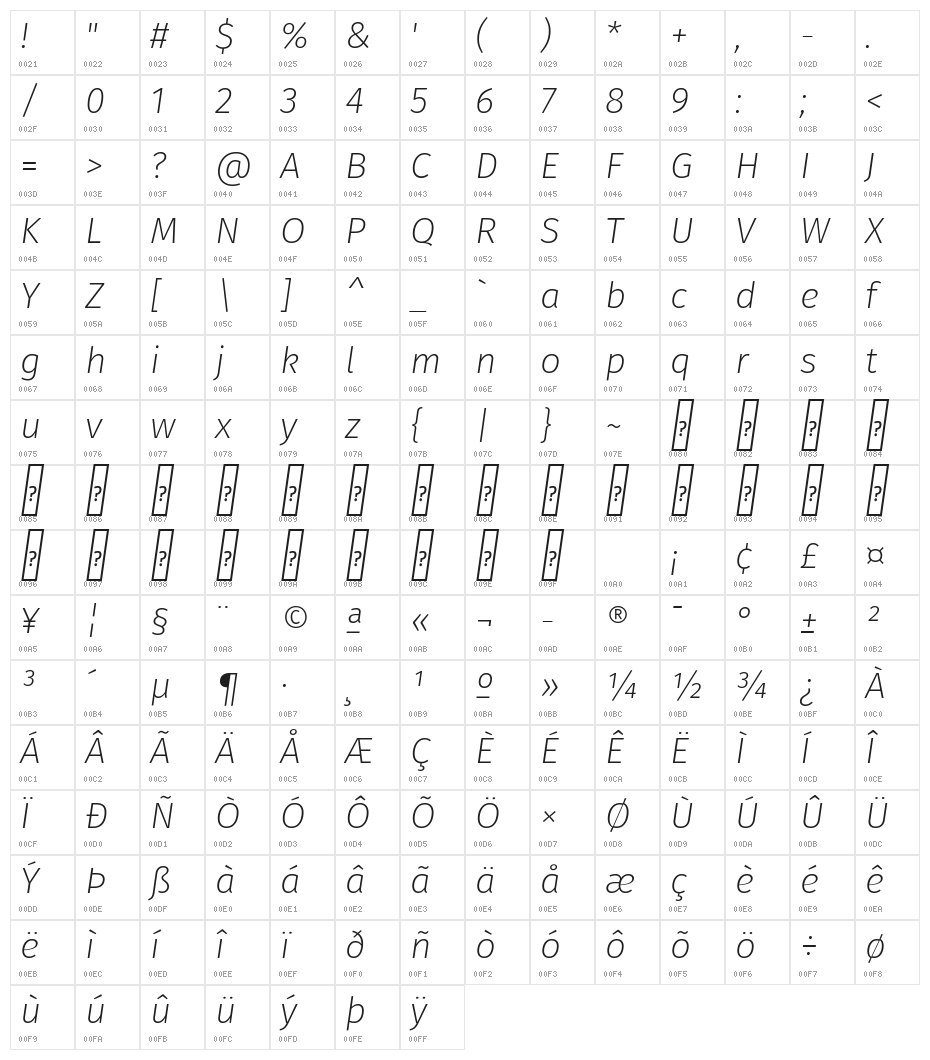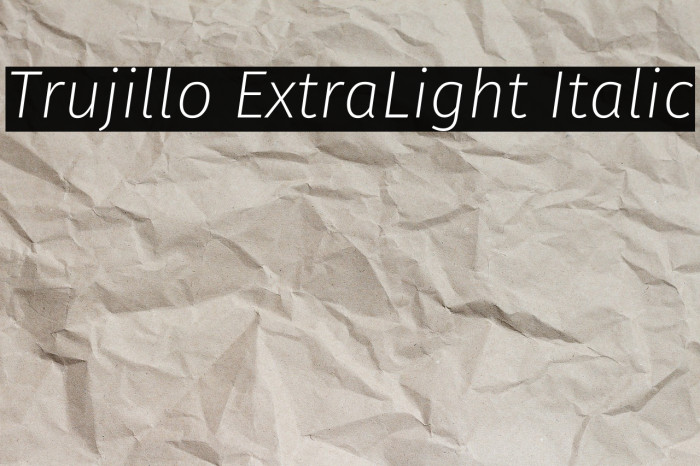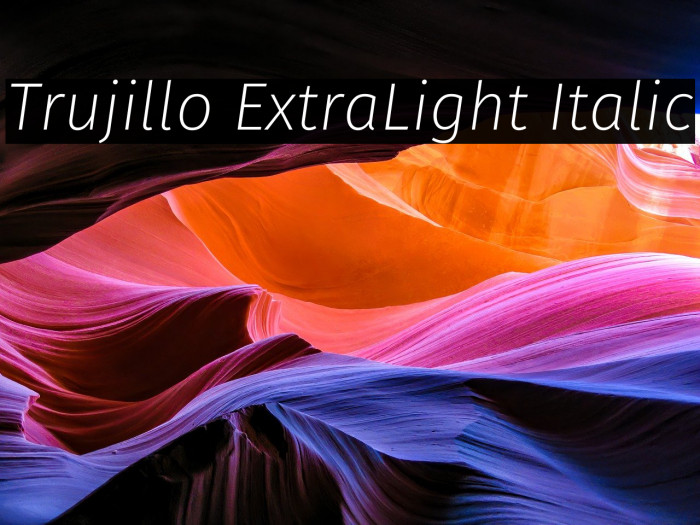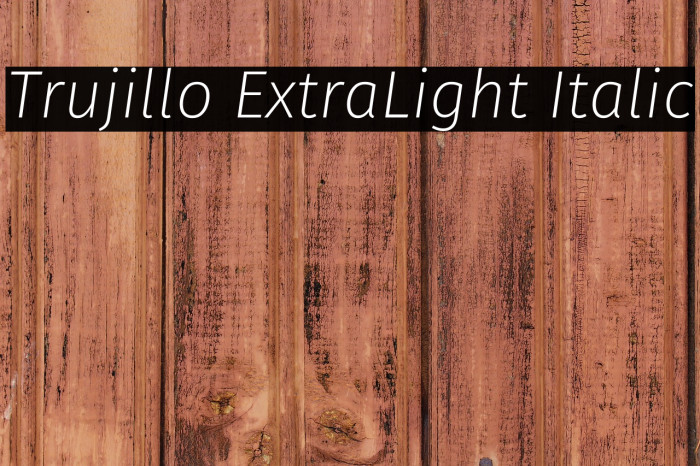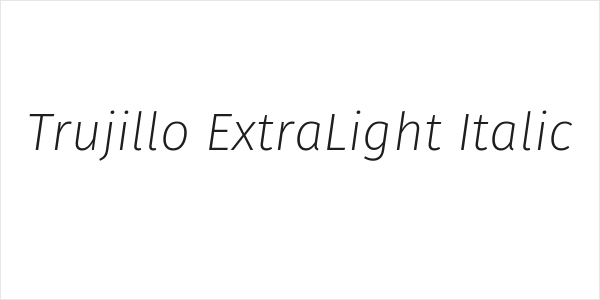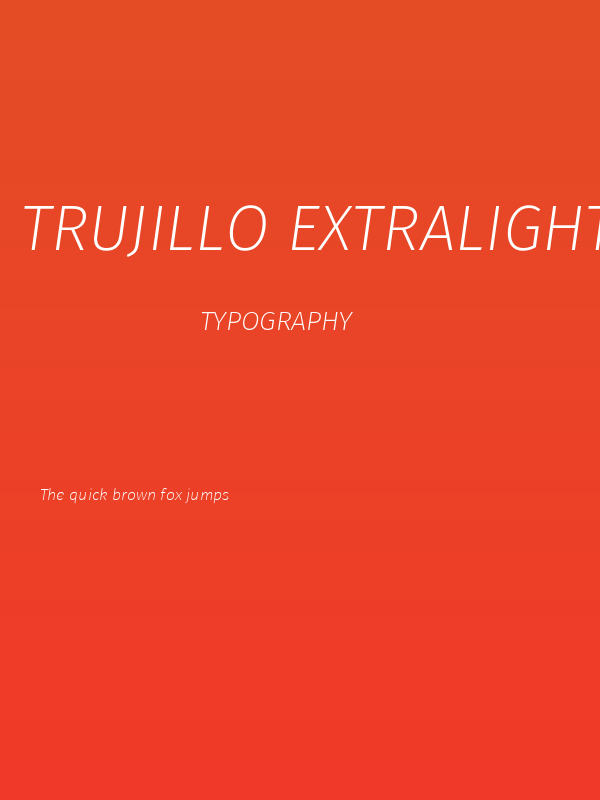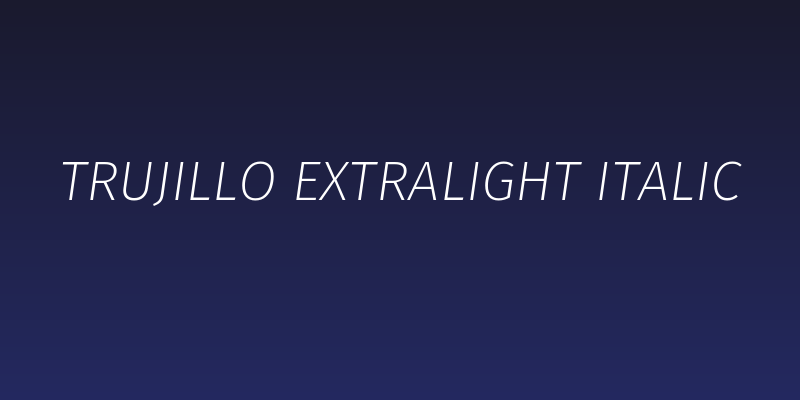
Trujillo ExtraLight Italic Font
Trujillo ExtraLight Italic Description
This font features a sleek, modern design with a subtle italic slant, giving it a sophisticated and dynamic appearance. The characters are crafted with an extra-light weight, providing an airy and elegant feel. The sans-serif style ensures clean lines and a minimalist aesthetic, making it highly versatile for various design applications. The spacing between characters is normal, allowing for excellent readability while maintaining a stylish look. The font's low contrast in stroke thickness contributes to its refined and understated elegance, making it suitable for contemporary design projects.
| Proposed Projects | Ideal for modern branding, editorial design, websites, and minimalist posters. |